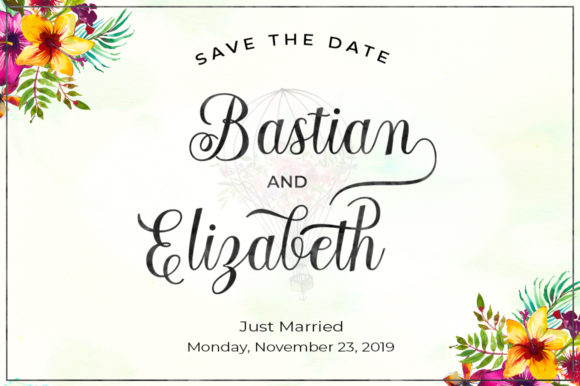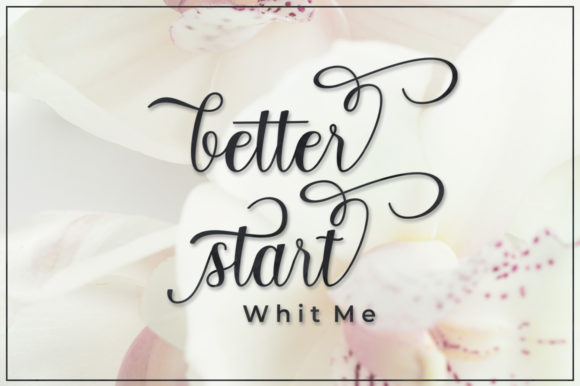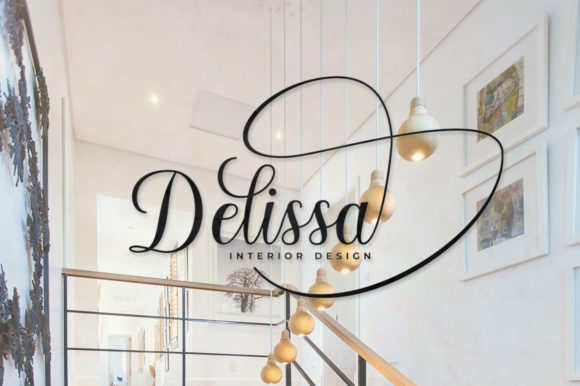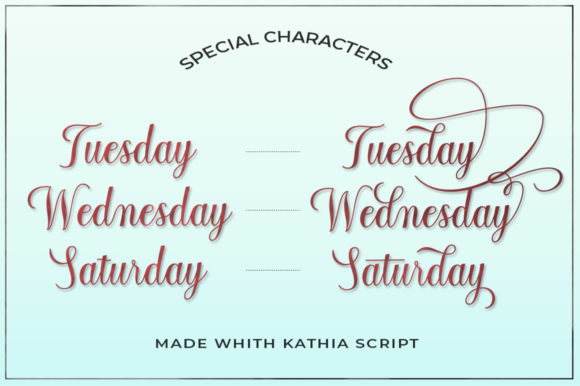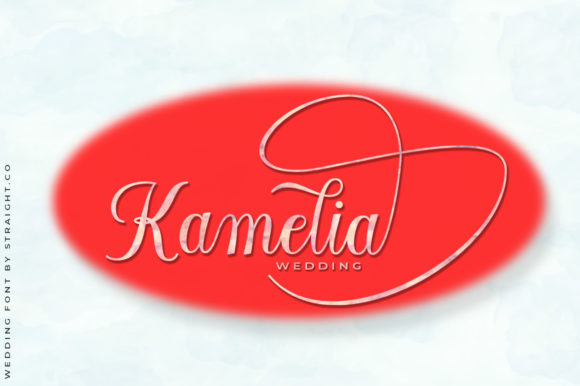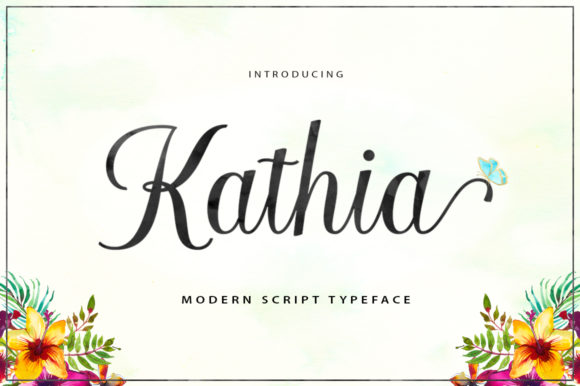
Kathia Script Font
About Kathia Script Font
The Kathia is a modern calligraphy font. It has a casual, yet elegant style and includes pretty swashes.
It can be used for logos, product packaging, wedding invitations, branding, headlines, signage, labels, signature, book covers, posters, quotes and more.